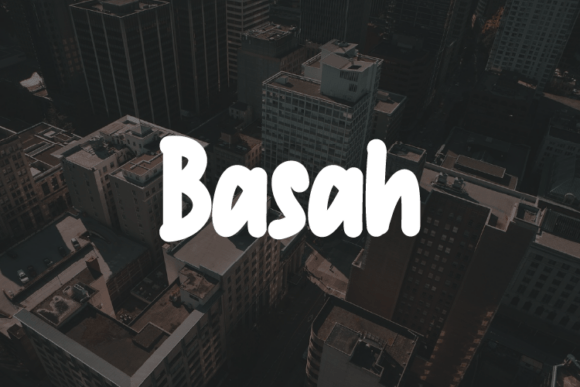
Basah Typeface: Elevating Editorial Design
The cursor blinked on the blank canvas of my latest project, a digital lifestyle guide meant to feel less like a manual and more like a conversation. I had spent hours tweaking margins and selecting color palettes that whispered rather than shouted, but the layout felt incomplete. It lacked a voice. That is when I turned to Basah, a modern and elegant typeface from Script Amp that promised flexibility without sacrificing character. As a designer who has tested countless fonts for blog headers, ebook covers, and newsletter graphics, I know that finding the right typeface is not just about aesthetics; it is about building a better reading experience.
Creating Visual Hierarchy in Digital Layouts
In editorial design, visual hierarchy is everything. Readers scan before they read, and their eyes need signposts to navigate the content. I used Basah primarily for the chapter openers and major section headings. Its distinct personality immediately drew attention, acting as a gentle anchor in the sea of text. Unlike some display fonts that can feel heavy or overpowering, Basah maintained an airy lightness. This allowed me to create strong contrast without disrupting the flow of the article.
I paired Basah with a clean sans serif font for the body copy. This combination is a classic choice for web design and digital magazines because it ensures readability across devices. The sans serif handled the long-form content with ease, while Basah added those crucial moments of delight at the top of each section. When I exported the PDF to check how it looked on mobile screens, the legibility held up remarkably well. The font’s structure remained clear even at smaller sizes, a testament to its thoughtful design. For bloggers and publishers, this cross-platform consistency is vital. You want your brand identity to remain intact whether someone is reading on a tablet during their commute or on a desktop at home.
Versatility Across Media Formats
One of the most appealing aspects of Basah is its adaptability. After finishing the lifestyle guide, I experimented with it in other contexts to see where else it might shine. I created a mockup for a recipe ebook, using Basah for the dish titles. The elegance of the font elevated simple meals into something special, adding a touch of sophistication that plain text could not achieve. It worked equally well for a wedding guide template, where the romantic yet modern aesthetic fit perfectly with the theme.
I also tested Basah for a coaching workbook. Here, the font served as a motivational tool. Using it for pull quotes and key takeaways helped break up dense information, making the material feel more digestible. The script-like qualities of the font added a personal touch, as if the coach were speaking directly to the student. This emotional connection is what separates good design from great design. It transforms static text into an engaging experience.
- Blog Headers: Creates an inviting first impression for new visitors.
- Ebook Covers: Adds a premium feel to digital products and downloads.
- Newsletter Graphics: Enhances brand recognition in email marketing.
- Printable Planners: Offers a stylish yet readable option for daily organization.
- Social Media Graphics: Stands out in crowded feeds with its unique rhythm.
Readability and Technical Considerations
While Basah is undeniably beautiful, its primary function is communication. As a publisher, I always prioritize readability. Basah excels here because it avoids the excessive flourishes that can make script fonts difficult to decipher. The letterforms are open and distinct, reducing eye strain during longer reading sessions. This makes it suitable not just for titles, but also for short paragraphs, captions, and introductory text.
Before using any commercial font in client publications or paid newsletters, it is essential to check the licensing terms. Basah comes with clear guidelines for use, ensuring that creators can confidently apply it in both personal and professional projects. The .otf format supports a wide range of languages, which is crucial for global audiences. I also explored the included alternates and ligatures, which allow for further customization. These subtle details enable designers to tweak the look of specific words, ensuring that the typography feels bespoke rather than generic.
Building a Cohesive Brand Identity
Consistency is the cornerstone of brand identity. By incorporating Basah into various touchpoints, from course PDFs to printable guides, I established a recognizable visual language. The font became a signature element, signaling quality and care to the audience. When readers see the same elegant typeface across different materials, it builds trust. They begin to associate the visual style with the value of the content.
For independent content brands, investing in a premium font like Basah is a strategic move. It elevates the perceived value of the work, distinguishing it from the multitude of free, overused options available online. Whether you are designing a logo, packaging, or a simple social media post, the right typeface communicates professionalism. Basah strikes that delicate balance between creative expression and functional clarity.
If you are working on your next editorial project, consider how your font choice influences the reader’s journey. A well-chosen typeface does the heavy lifting, allowing your words to resonate more deeply. Basah is more than just a set of characters; it is a partner in creation, ready to bring your ideas to life with grace and precision.